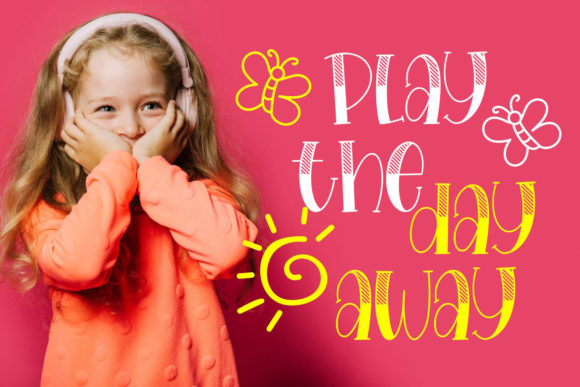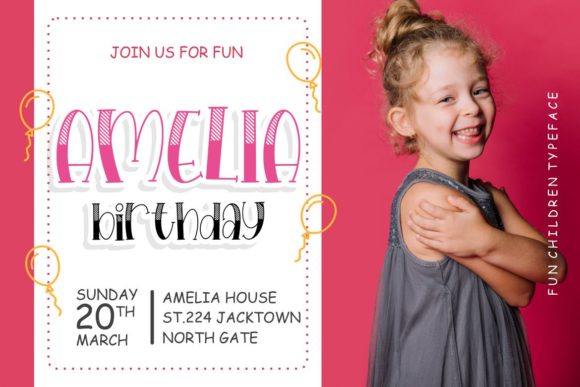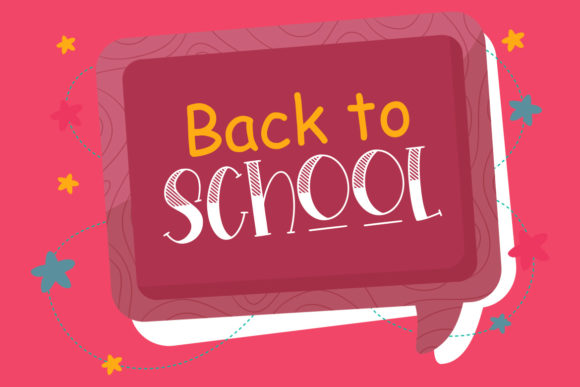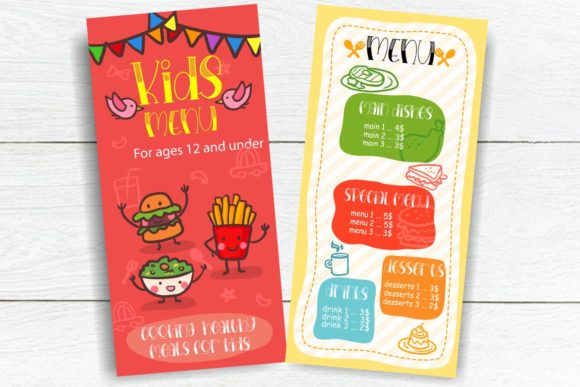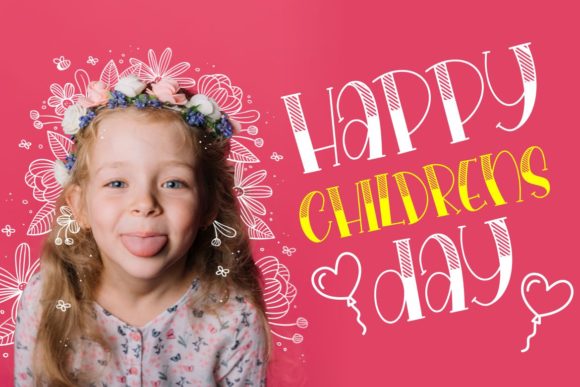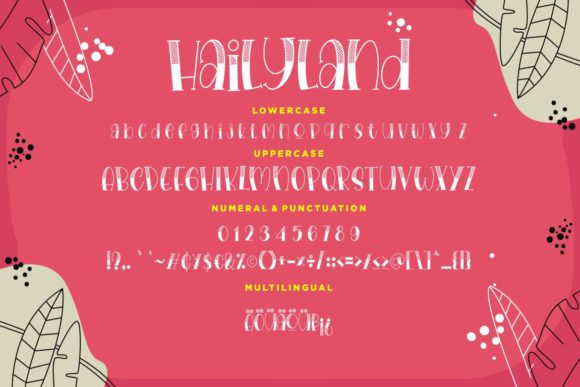
Hailyland Font: Unleash Your Creativity with this Playful Display Font
Are you looking for a font that can add a touch of fun and playfulness to your designs? Look no further than Hailyland Font! This beautiful display font is perfect for kids and school projects, and is sure to bring a smile to anyone’s face. In this article, we’ll take a closer look at Hailyland Font, its features, and how you can use it to unleash your creativity.
What is Hailyland Font?
Hailyland Font is a display font designed to bring a sense of childlike playfulness to your designs. Its fun and quirky style makes it perfect for use in kids’ projects, school materials, and even adult designs that need a touch of whimsy. The font is carefully crafted to be easy to read and visually appealing, making it a great choice for designers and crafters of all levels.
Features of Hailyland Font
So, what makes Hailyland Font so special? Here are just a few of its key features:
- Childlike playfulness: Hailyland Font is designed to evoke a sense of fun and playfulness, making it perfect for kids and school projects.
- Elegant and easy to read: Despite its playful style, Hailyland Font is carefully crafted to be easy to read and visually appealing.
- Versatile: Hailyland Font can be used in a wide range of designs, from kids’ party invitations to school posters and more.
- High-quality: Hailyland Font is a high-quality font that is designed to deliver crisp, clear results in any design.
How to Use Hailyland Font
Now that we’ve covered the features of Hailyland Font, let’s talk about how to use it. Here are a few ideas to get you started:
- Kids’ party invitations: Use Hailyland Font to create fun and playful invitations for kids’ parties.
- School posters: Add a touch of whimsy to school posters with Hailyland Font.
- Craft projects: Use Hailyland Font to add a personal touch to craft projects, such as handmade cards and gift tags.
- Digital designs: Hailyland Font is perfect for use in digital designs, such as social media graphics and blog posts.
Tips for Using Hailyland Font
Here are a few tips to keep in mind when using Hailyland Font:
- Use it sparingly: While Hailyland Font is fun and playful, it can be overwhelming if used too much. Use it sparingly to add a touch of whimsy to your designs.
- Pair it with other fonts: Hailyland Font pairs well with other fonts, such as sans-serif fonts. Experiment with different pairings to find the one that works best for your design.
- Experiment with colors: Hailyland Font looks great in a variety of colors. Experiment with different colors to find the one that works best for your design.
In conclusion, Hailyland Font is a beautiful and fun display font that is perfect for kids and school projects. Its childlike playfulness and elegant style make it a great choice for designers and crafters of all levels. With its versatility, high-quality design, and ease of use, Hailyland Font is sure to become a favorite in your design arsenal. So why wait? Download Hailyland Font today and start unleashing your creativity!
- What is Hailyland Font? Hailyland Font is a display font designed to bring a sense of childlike playfulness to your designs.
- Is Hailyland Font easy to read? Yes, Hailyland Font is carefully crafted to be easy to read and visually appealing.